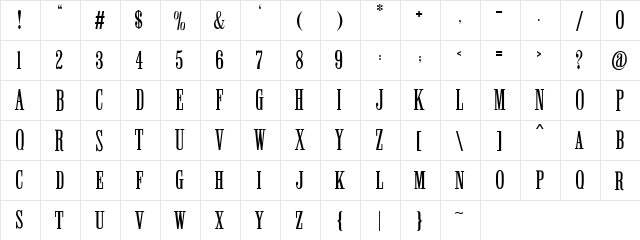
Winchester Caps Regular
Design Context for Winchester Caps Typeface
Winchester Caps takes a measured approach to typography — its balanced proportions and neutral character make it a reliable workhorse for both digital and print work.